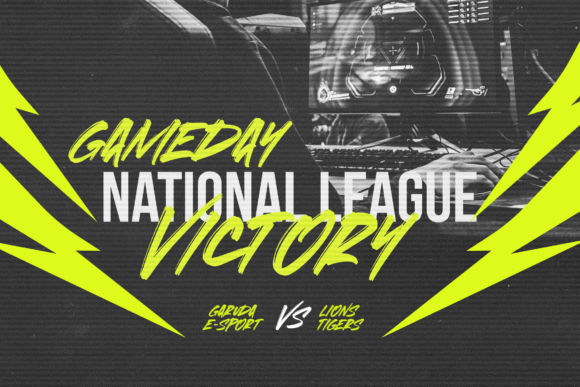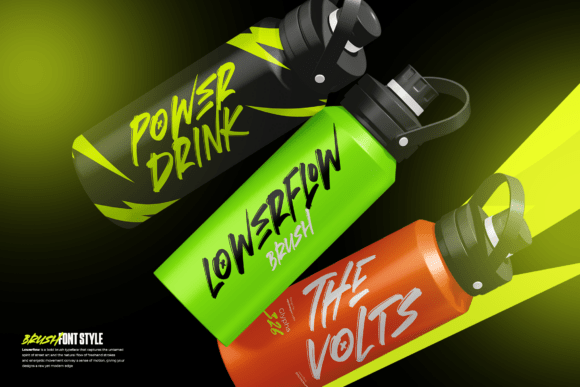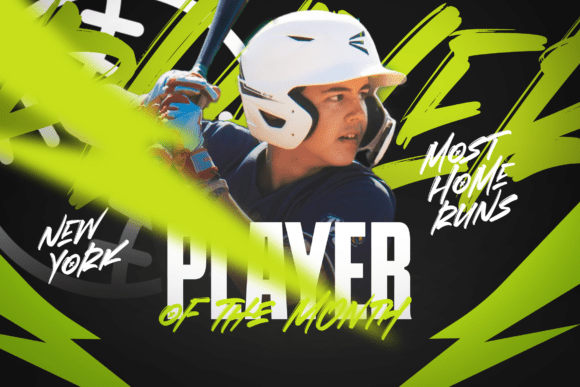
Introduction to Lowerflow Font
Have you ever been brainstorming a creative project, flipping through design inspiration, and suddenly, a bold brush stroke catches your eye? That’s exactly what happens when you come across the Lowerflow Font. This stunning, handcrafted typeface is the perfect combination of raw energy and modern sophistication.
As a designer, you know how hard it can be to find the perfect font to match your creative vision. That’s why we’re excited to dive into the world of Lowerflow Font, a game-changing design resource that’s sure to elevate your projects. With its transparent background and high-quality design, Lowerflow Font is a must-have for any creative endeavor.
Key Features of Lowerflow Font
- High-quality design resource with a unique, modern aesthetic suitable for creative projects.
- Features a transparent background, making it ideal for use on images and videos with complex backgrounds.
- Designed to be highly legible at various sizes and resolutions, from 72 dpi to 300 dpi.
- Includes a comprehensive character set with support for multiple languages.
- Perfect for designers, artists, and creatives looking for a modern, stylish font to elevate their work.
Honest Review: Lowerflow Font
As a designer, I’m always on the lookout for high-quality fonts to elevate my creative projects. Recently, I stumbled upon the Lowerflow Font, and I’m excited to share my honest review with you.
What works well: ✨ The Lowerflow Font has a unique, modern aesthetic that’s perfect for creative projects that require a touch of sophistication. The font is highly legible, even at small sizes, making it ideal for body text and headings. I also appreciate the fact that it’s available for free download, which is a great resource for designers on a budget.
What doesn’t: ⚠️ The Lowerflow Font is a single-weight font, which may limit its versatility in certain design scenarios. Additionally, the transparent background option can be a bit tricky to work with, especially when using it with complex compositions. However, these limitations are relatively minor and don’t detract from the overall quality of the font.
Overall impression: I’m thoroughly impressed with the Lowerflow Font. Its unique design and high-quality construction make it a valuable addition to any designer’s toolkit. If you’re looking for a modern, sophisticated font for your creative project, I highly recommend giving the Lowerflow Font a try.
- Unique, modern aesthetic
- Highly legible
- Single-weight font
Tips for Getting the Most Out of Lowerflow Font
For the best results, use Lowerflow Font in combination with other high-quality design resources. Experiment with different font sizes, colors, and backgrounds to create unique and visually appealing designs. You can also use the font in conjunction with other design elements, such as images and graphics, to add depth and interest to your project.
Lowerflow Font is a versatile font that can be used in a variety of design scenarios. Some common use cases include creating social media graphics, designing presentations, and developing marketing materials. The font’s high quality and transparent background make it a great resource for creatives working on a wide range of projects.
Is the Lowerflow Font suitable for use with a transparent background?
Yes, the Lowerflow Font is designed to be used with a transparent background, making it perfect for designs that require a clean and minimalist look. The font’s transparent background also allows for seamless integration with other design elements.